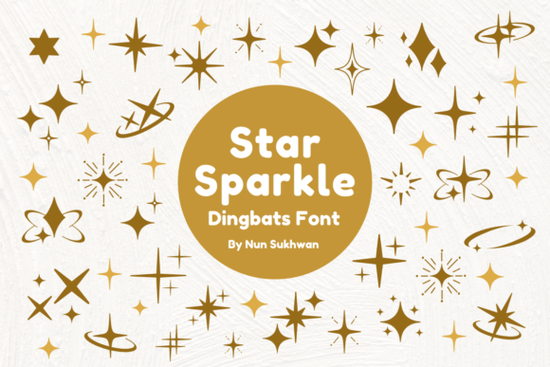
Star Sparkle Font is a unique dingbats font that brings a touch of magic to any creative project. With its celestial theme, this font is perfect for adding a whimsical and elegant flair to your designs. Whether you're working on wedding invitations, handmade crafts, or custom decorations, Star Sparkle Font can help you stand out with its eye-catching style.
If you're looking for a way to add some sparkle to your work, consider using Star Sparkle Font. It's ideal for designers, crafters, and small businesses who want to elevate their visual elements without complicated tools. The font’s star-shaped symbols make it easy to create stunning graphics that catch the eye and convey a sense of wonder.
What Makes Star Sparkle Font Unique?
Unlike standard fonts, Star Sparkle Font uses dingbats small, decorative symbols to create a visual effect. This means you don’t need to type out words; instead, you can insert star symbols that look like real stars. The design is clean, modern, and versatile, making it suitable for both digital and print projects.
The celestial theme of Star Sparkle Font makes it especially popular for events like weddings, birthdays, and holiday celebrations. Its simplicity allows it to blend well with other fonts, so you can use it as a highlight or accent in your layouts. You can also customize it to fit different color schemes, ensuring it matches your overall design vision.
How Can You Use Star Sparkle Font?
There are many ways to incorporate Star Sparkle Font into your creative work. For example, you can use it to create eye-catching headlines on social media posts, add a special touch to greeting cards, or design logos that reflect a magical or dreamy vibe. It’s also great for print-on-demand sellers who want to offer unique products with a personalized feel.
Designers often use Star Sparkle Font to add visual interest to posters, banners, and website headers. Its star symbols can be used to draw attention to key points or to create patterns that enhance the overall aesthetic. Because it’s a dingbats font, it works well with other text-based fonts, allowing for more flexibility in your design process.
Best Practices for Using Star Sparkle Font
- Use it sparingly: While Star Sparkle Font is visually appealing, overusing it can make your design look cluttered. Limit its use to areas where it will have the most impact.
- Pair it with complementary fonts: Combine it with a simple, readable font to balance the design and ensure readability.
- Experiment with colors: Try different color combinations to see how they affect the overall look of your project.
Why Choose Star Sparkle Font?
Star Sparkle Font is an excellent choice for anyone looking to add a touch of creativity to their work. It’s easy to use, visually appealing, and available in multiple formats to suit different needs. Whether you're a professional designer or a hobbyist, this font can help you bring your ideas to life with style and flair.
Its celestial theme makes it a popular option for seasonal projects, such as holiday cards, birthday invitations, and event promotions. It’s also a great tool for small businesses that want to create a memorable brand identity. With its unique design and versatility, Star Sparkle Font is a valuable addition to any designer’s toolkit.
If you’re interested in exploring more fonts with similar themes, you can visit this page for additional options. There, you’ll find a collection of fonts that share the same celestial inspiration and creative potential.
Whether you're designing for personal or commercial use, Star Sparkle Font offers a fun and effective way to enhance your visuals. Give it a try and see how it can transform your next project into something truly special.
Quick Checklist:
- Try using Star Sparkle Font in a small section of your design first.
- Look for inspiration from other designers who use this font.
- Experiment with different sizes and placements to find the best effect.
- Consider combining it with other decorative elements for a cohesive look.